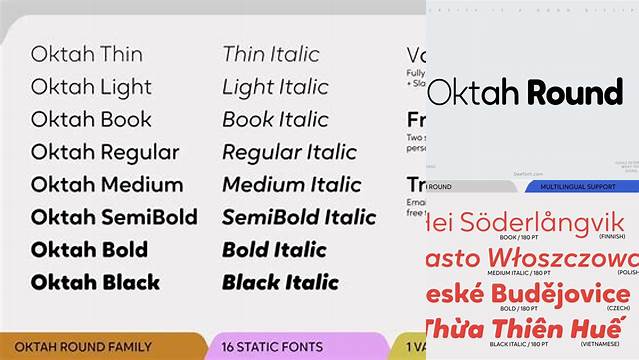
Introduction to Oktah Round Font
Oktah Round Font has emerged as a popular choice in the realm of typography, celebrated for its modern, clean, and approachable aesthetic. Guys, if you're looking for a font that seamlessly blends legibility with visual appeal, Oktah Round might just be your perfect match. This font family, characterized by its rounded terminals and geometric structure, lends a touch of warmth and friendliness to any design project. Whether you're crafting a brand identity, designing a website, or putting together marketing materials, Oktah Round offers a versatile solution that can elevate your work. The rounded edges soften the overall appearance, making it particularly well-suited for projects that aim to convey a sense of trust, reliability, and approachability. Its geometric foundation ensures that the letters maintain a crisp and clear form, preventing the softness from compromising readability.
The versatility of Oktah Round lies in its ability to adapt to various design contexts. It works beautifully in headlines, body text, and even in smaller captions, making it a truly all-encompassing typeface. Its clean lines ensure that the message is conveyed clearly, while its rounded terminals add a subtle touch of character. This balance between functionality and aesthetics is what sets Oktah Round apart from more generic fonts. Designers often choose Oktah Round when they want to create a design that feels both modern and inviting, avoiding the starkness that can sometimes come with strictly geometric sans-serif fonts. In addition, the font's inherent legibility makes it a great option for user interfaces, where clarity is paramount. It's no wonder, then, that Oktah Round has found its way into a wide range of applications, from corporate branding to web design and print media. So, let's dive deeper into what makes Oktah Round so special and how you can get your hands on it for free.
Key Features and Design Philosophy
When we talk about Oktah Round font's key features, we're really diving into what makes it stand out in the crowded world of typography. First off, the rounded terminals are a major characteristic. Unlike fonts with sharp, angular edges, Oktah Round’s soft, curved ends give it a friendly and approachable feel. This design choice is intentional, aiming to make the text more inviting and less intimidating. It’s the kind of detail that subconsciously impacts how readers perceive the message, making it feel warmer and more personable. Beyond the rounded terminals, the font’s geometric construction is another crucial aspect. This means the letterforms are built on simple geometric shapes like circles and rectangles, giving the font a clean and modern look. The geometric structure ensures consistency across all characters, contributing to the font's overall legibility and harmonious appearance. This is particularly important in branding and logo design, where visual consistency is key to establishing a recognizable identity.
The design philosophy behind Oktah Round is rooted in the idea of creating a typeface that is both functional and aesthetically pleasing. The goal is to strike a balance between clarity and character, producing a font that works well in a variety of contexts without sacrificing its unique personality. This philosophy is evident in the font's proportions and spacing, which are carefully calibrated to ensure optimal readability, even at smaller sizes. The designers behind Oktah Round have paid close attention to the negative space around each letter, ensuring that the text is easy on the eyes and doesn't feel cramped or cluttered. Moreover, the font family often includes a range of weights and styles, from light to bold, providing designers with the flexibility to use it in different parts of a design, from headlines to body text. This versatility makes Oktah Round a valuable asset in any designer's toolkit, allowing for a cohesive and visually appealing typographic hierarchy. In essence, Oktah Round is designed to be a workhorse font – reliable, adaptable, and always ready to deliver a message with clarity and style. So, knowing its features and design principles is the first step in understanding how to best use it in your projects.
Design Projects That Benefit from Oktah Round Font
Let's talk about design projects where Oktah Round Font can really shine, guys! This font isn't just a pretty face; it's a versatile workhorse that can enhance a wide range of visual communications. One area where Oktah Round excels is in branding. Think about logos, business cards, and brand guidelines – this font can lend a modern and approachable feel to a company's identity. Its clean lines and rounded edges make it particularly well-suited for brands that want to convey a sense of trustworthiness and friendliness. Whether it's a tech startup, a creative agency, or a customer-focused service provider, Oktah Round can help establish a brand identity that resonates with its target audience. In the realm of web design, Oktah Round is a fantastic choice for both headlines and body text. Its legibility ensures that website visitors can easily read and engage with the content. The rounded terminals add a touch of warmth, making the website feel inviting and user-friendly.
Whether you're designing a corporate website, a blog, or an e-commerce platform, Oktah Round can contribute to a positive user experience. Beyond branding and web design, Oktah Round is also an excellent option for print materials. Consider brochures, posters, and flyers – this font can help your message stand out while maintaining a professional appearance. Its clean design ensures that the text remains clear and legible, even in smaller sizes. This is especially important for printed materials that need to convey information quickly and effectively. Another area where Oktah Round can make a significant impact is in user interface (UI) design. Whether you're creating a mobile app or a desktop application, the font's legibility and modern aesthetic make it a great choice for UI elements such as buttons, menus, and form labels. Its clean lines ensure that users can easily navigate the interface, while its rounded edges add a touch of personality. Ultimately, the versatility of Oktah Round Font means that it can be a valuable asset in any designer's toolkit. By understanding its strengths and how it can be applied to different types of projects, you can leverage this font to create visually appealing and effective designs.
In conclusion, Oktah Round Font is a fantastic choice for designers looking to add a touch of modernity and approachability to their projects. Guys, its rounded terminals, clean lines, and versatile nature make it well-suited for a wide range of applications, from branding and web design to print materials and UI design. While finding a free download might require a bit of digging, the effort is often worth it, given the font's aesthetic appeal and functionality. If you can't find Oktah Round for free, don't worry – there are plenty of excellent alternatives, such as Montserrat, Lato, Nunito, and Open Sans, that offer a similar vibe. The key is to understand the characteristics of each font and how they can best enhance your design. Remember, typography plays a crucial role in visual communication, and choosing the right font can make all the difference in conveying your message effectively. Whether you opt for Oktah Round or one of its alternatives, the principles of good typography remain the same: prioritize legibility, create visual hierarchy, and choose a font that aligns with the overall tone and message of your project. So, go ahead and explore the world of typography – experiment with different fonts, and have fun creating designs that are both visually appealing and impactful.